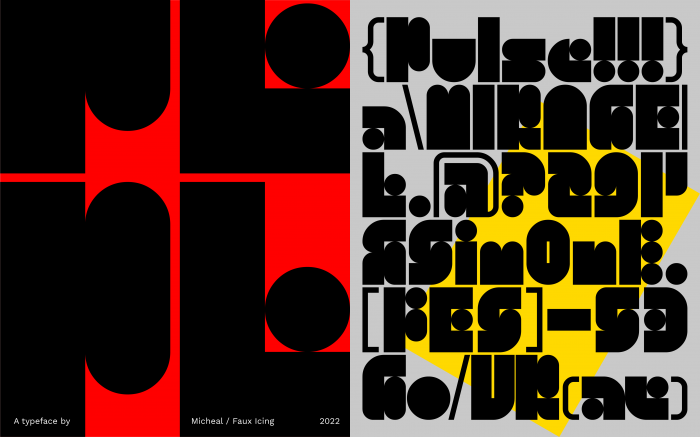
by faux_icing
• A spur-of-the-moment project. An exploration of geometric silhouette conformation and fun Futura-based alternates (specifically, using the circles as strokes).
Glyph alternates can be accessed under the Cyrillic characters.
your font looks like benoît bodhuin's pickle-standard
Nice use of geometric shapes.